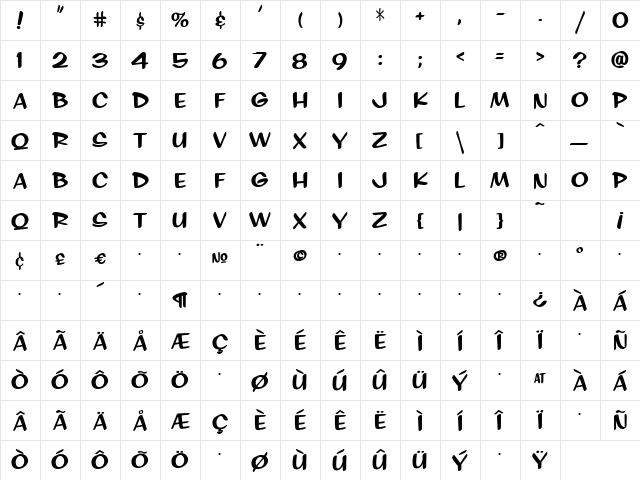
SignPainter HouseInformal Regular
Foundry: House Industries
Designer: House Industries
Design Context for SignPainter HouseInformal
SignPainter HouseInformal is a composed and adaptable typeface that performs quietly and consistently across a wide range of design contexts.
Who designed the SignPainter HouseInformal Regular font?